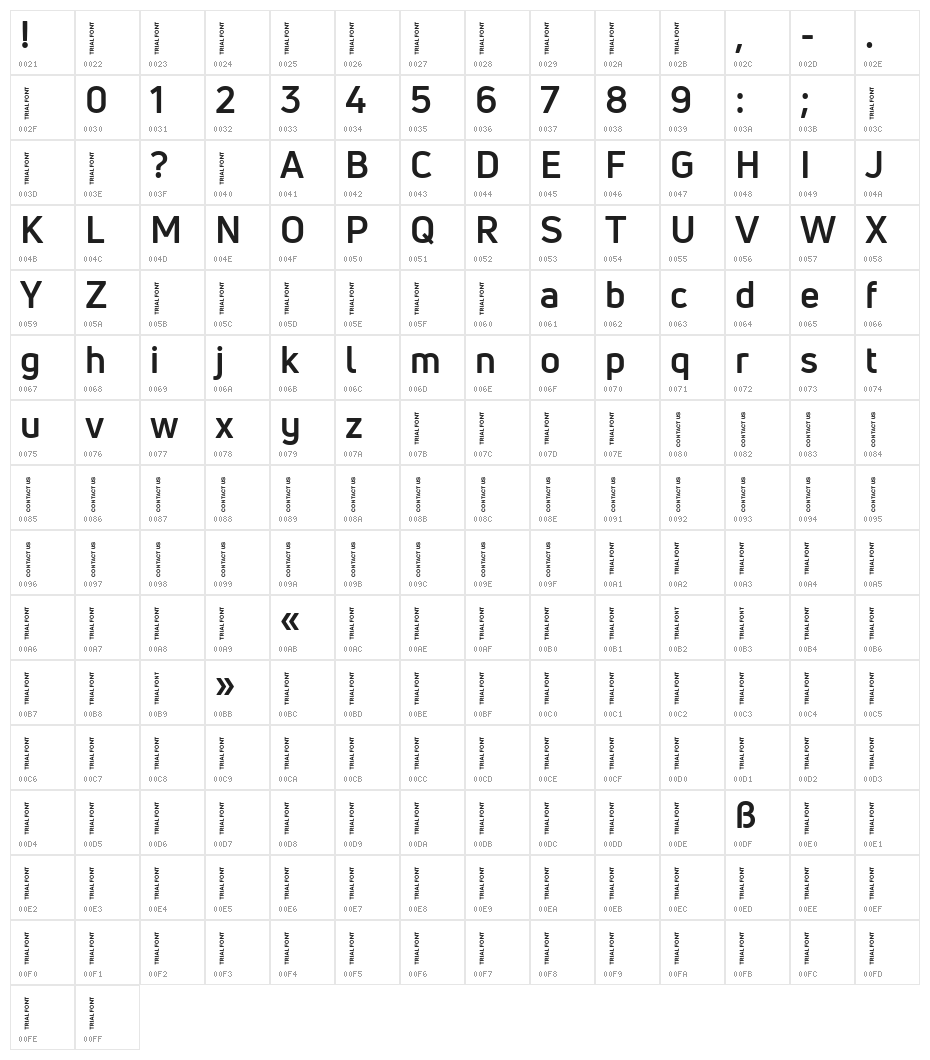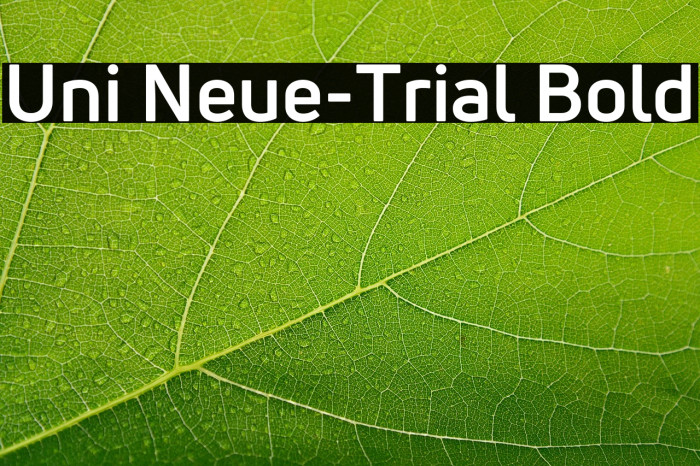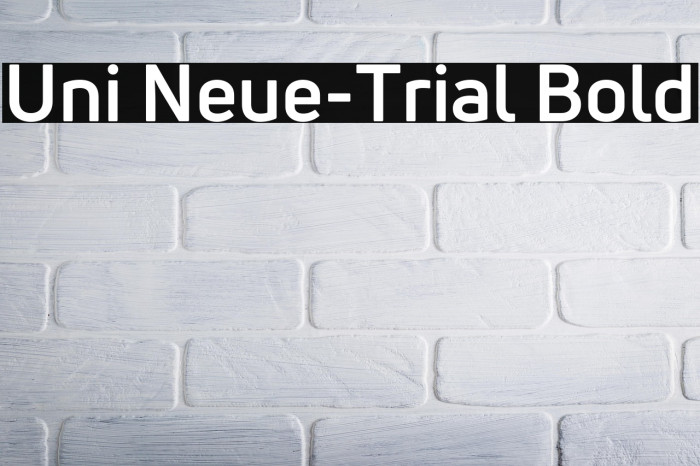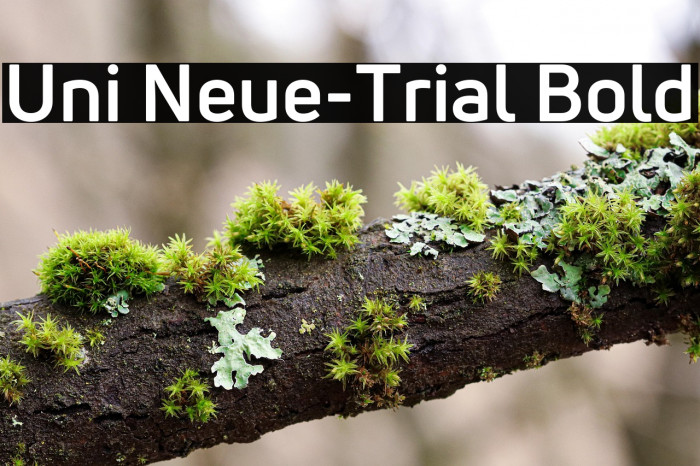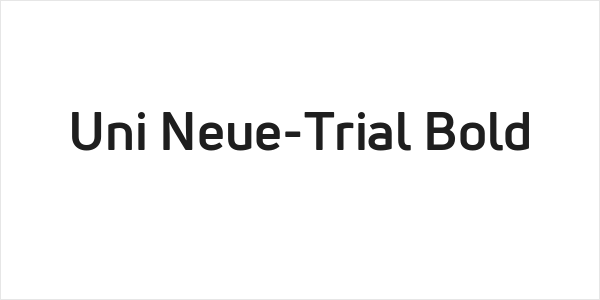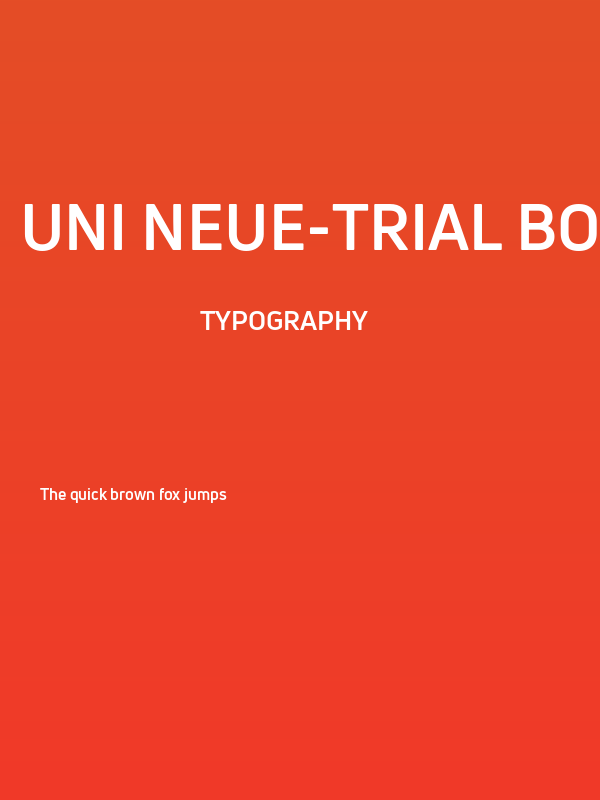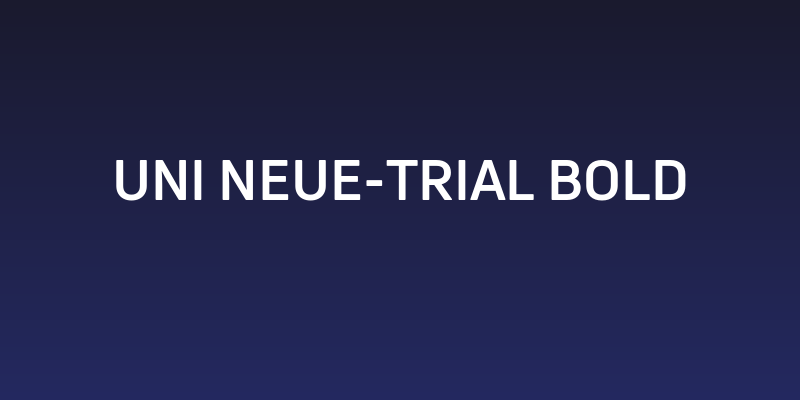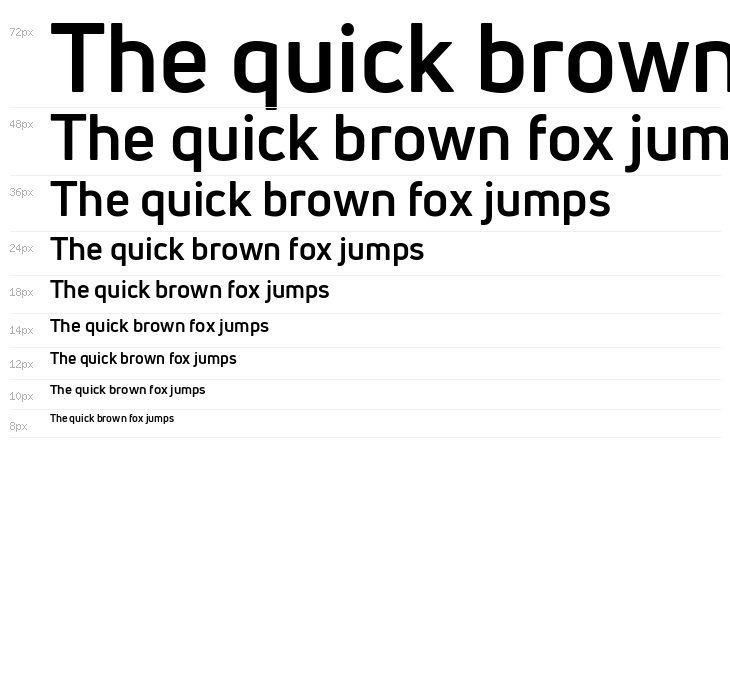
Uni Neue-Trial Bold Font
Uni Neue-Trial Bold Description
This font is a modern sans-serif typeface characterized by its clean, geometric lines and bold weight. It features a uniform stroke width, giving it a strong and consistent appearance. The characters are well-balanced with a slightly rounded edge, which adds a touch of softness to its otherwise robust structure. The uppercase and lowercase letters are designed with clarity in mind, making it highly legible at various sizes. The numerals are proportionate and align well with the overall style, while the special characters maintain the same visual harmony. This font is versatile and suitable for a wide range of applications.
| Use Case | Headlines, Logos, Digital interfaces |
| Proposed Projects | Ideal for branding, advertising, headlines, and digital interfaces. |